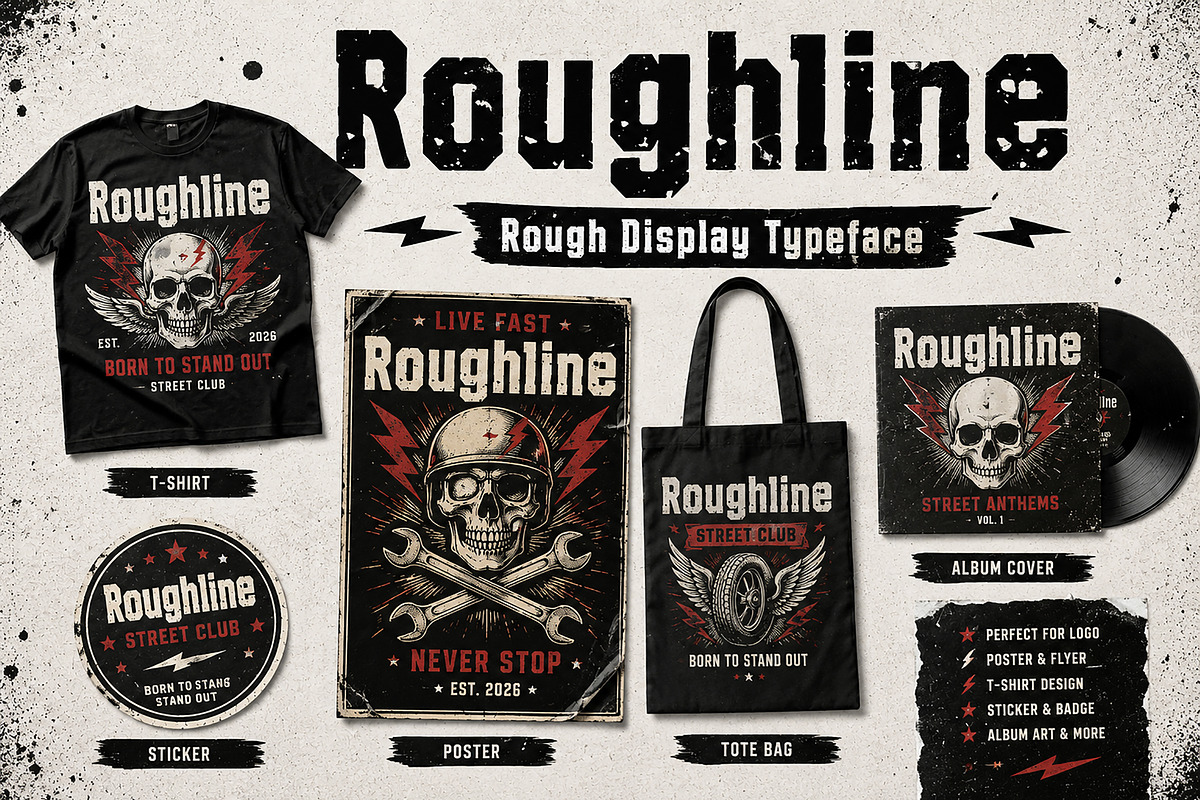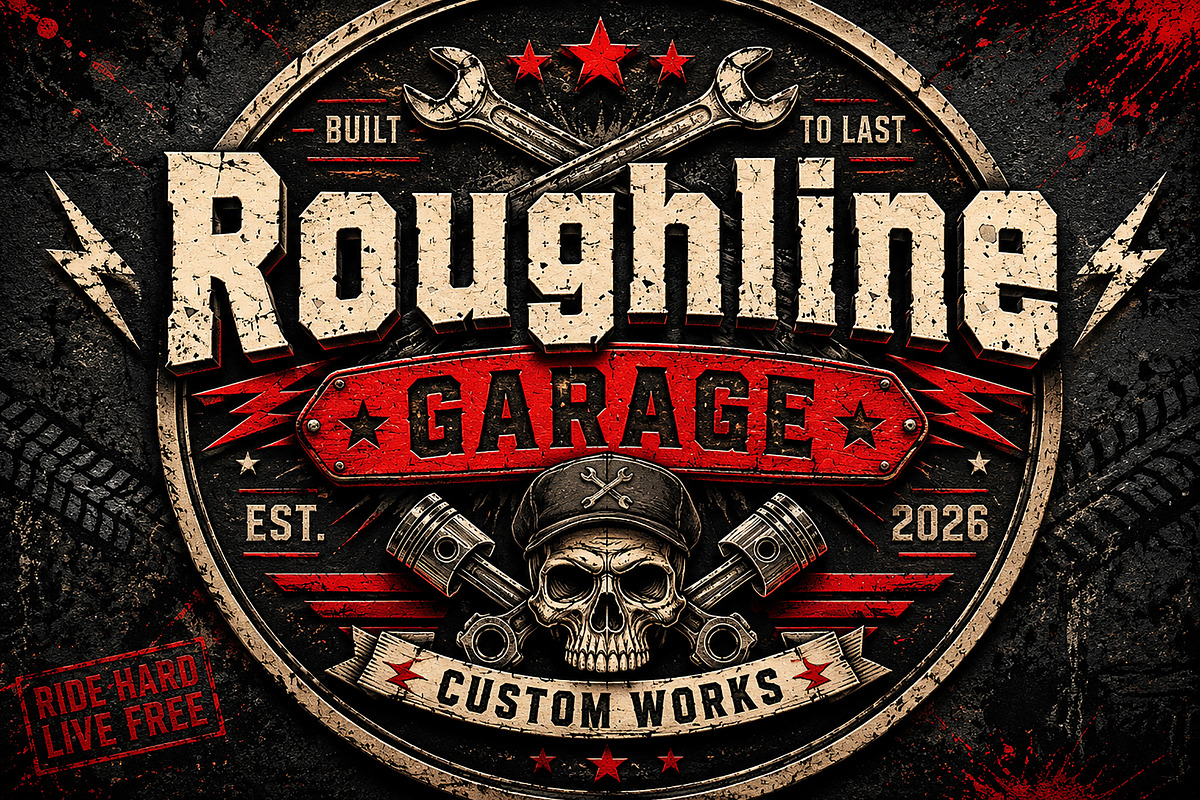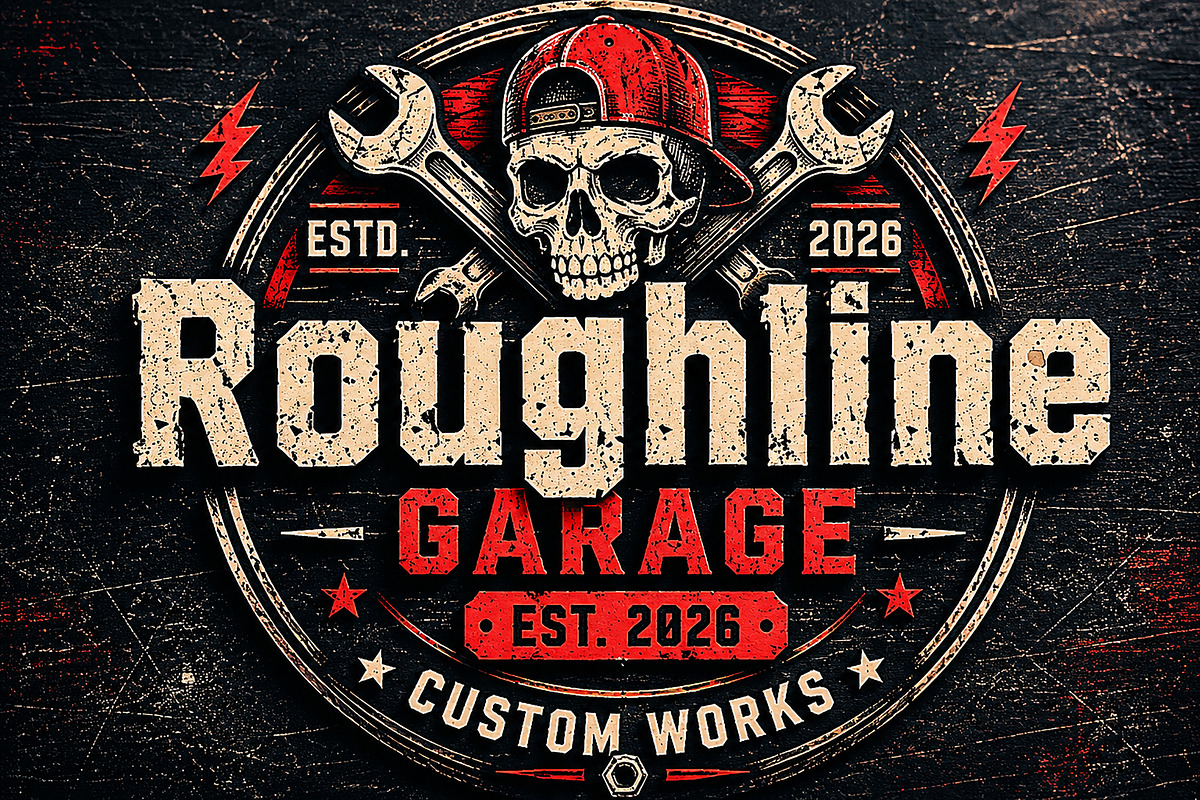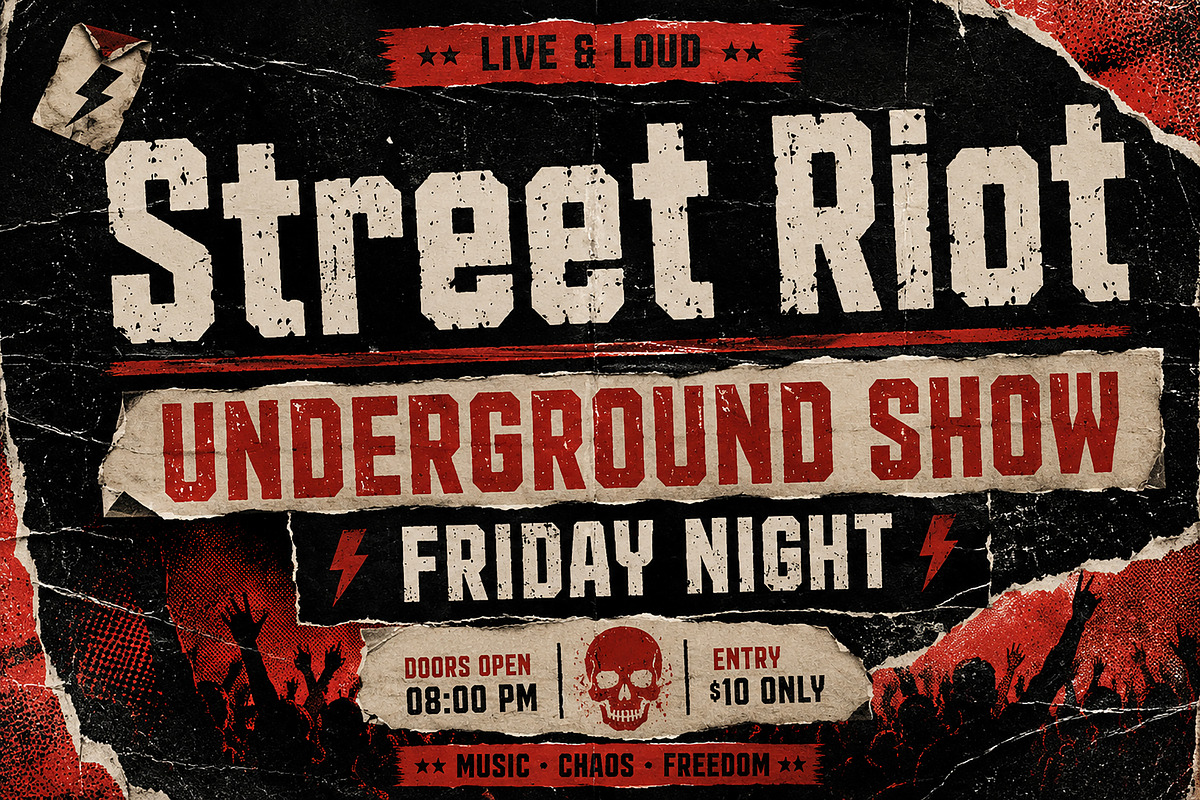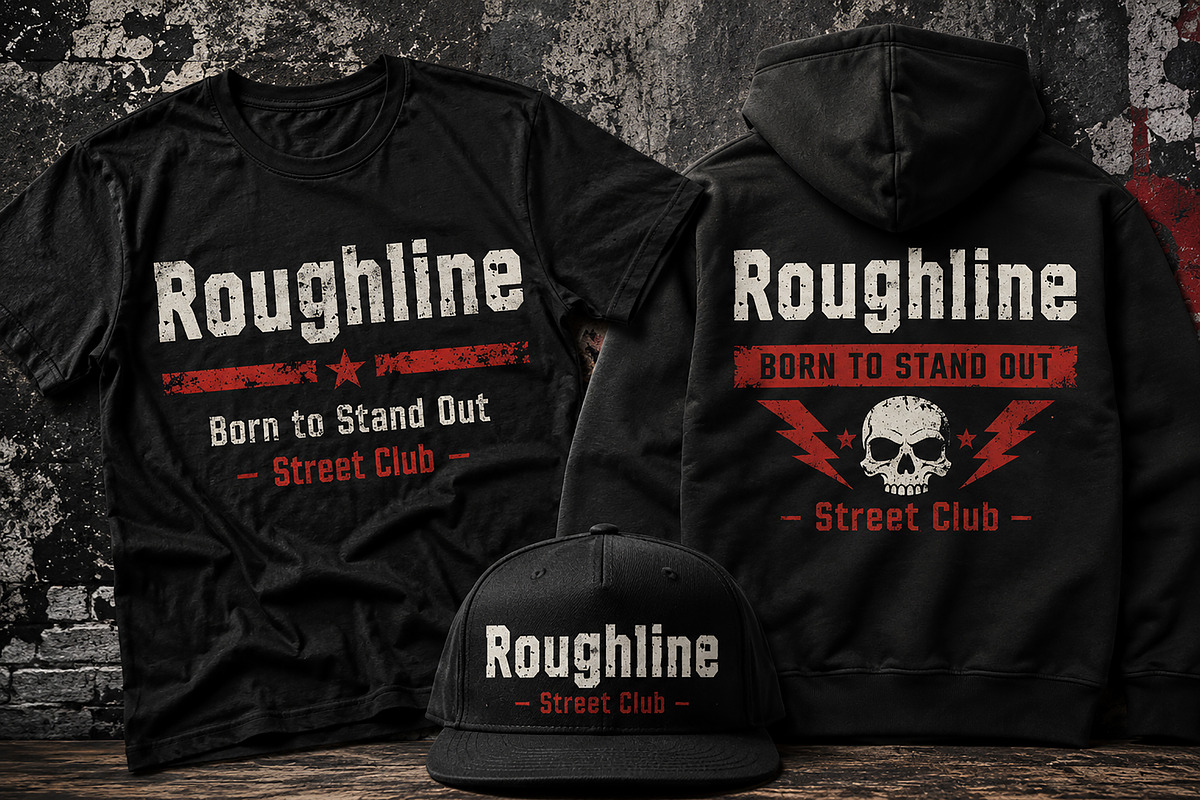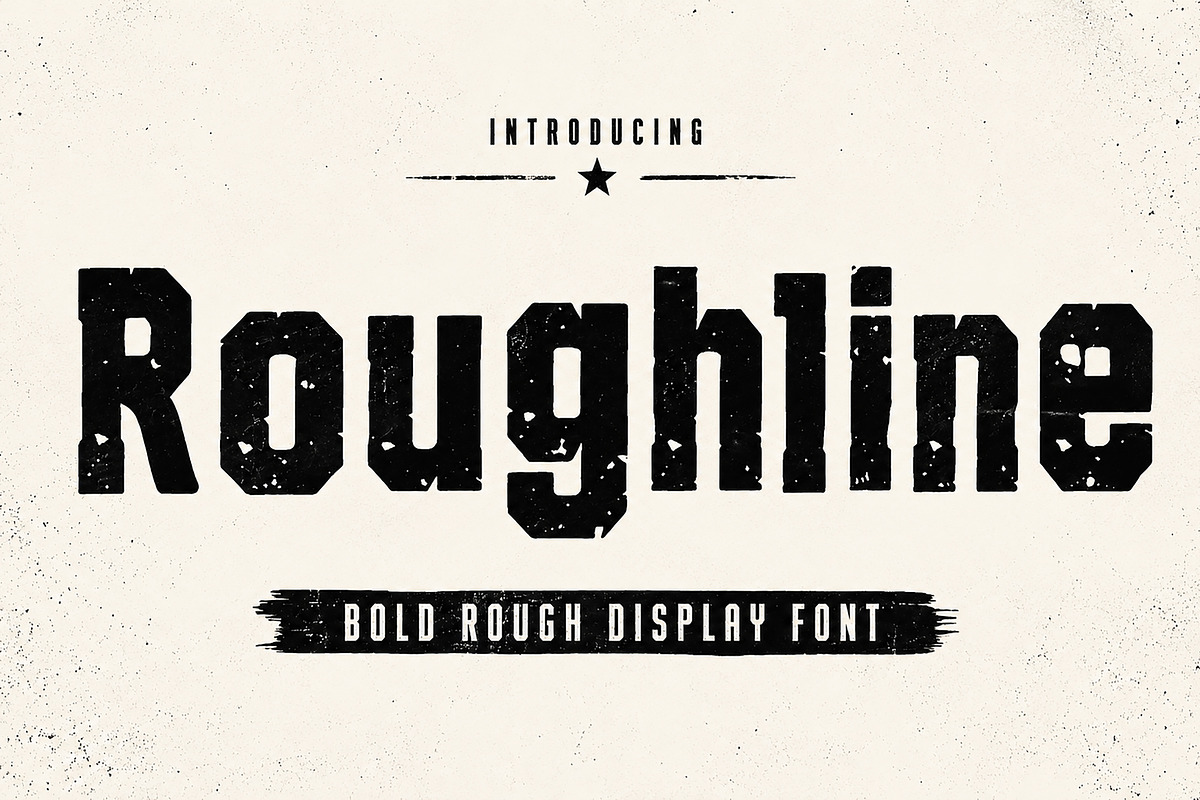
Roughline
Roughline – Bold Rough Display Font
Roughline is a bold rough display font designed with a strong vintage grunge aesthetic. Featuring distressed textures, rugged edges, and powerful letterforms, this typeface delivers an authentic handcrafted look perfect for eye-catching designs.
Inspired by underground street culture, retro posters, garage branding, and industrial typography, Roughline is ideal for creating bold headlines and impactful visual identities. Whether you are designing logos, apparel, posters, album covers, packaging, or social media graphics, this font adds a raw and rebellious character to every project.
Perfect for designers who want a rough, bold, and edgy display typeface with a vintage urban feel.
Streetwear Branding
Vintage Posters
Music Flyers
Garage & Workshop Logos
T-shirt & Apparel Design
Sticker & Patch Design
Album Covers
Packaging & Labels
Print-on-Demand Products
Urban & Industrial Branding
Grunge Typography Projects
Uppercase Characters
Distressed Rough Texture
Bold Display Style
Vintage Grunge Look